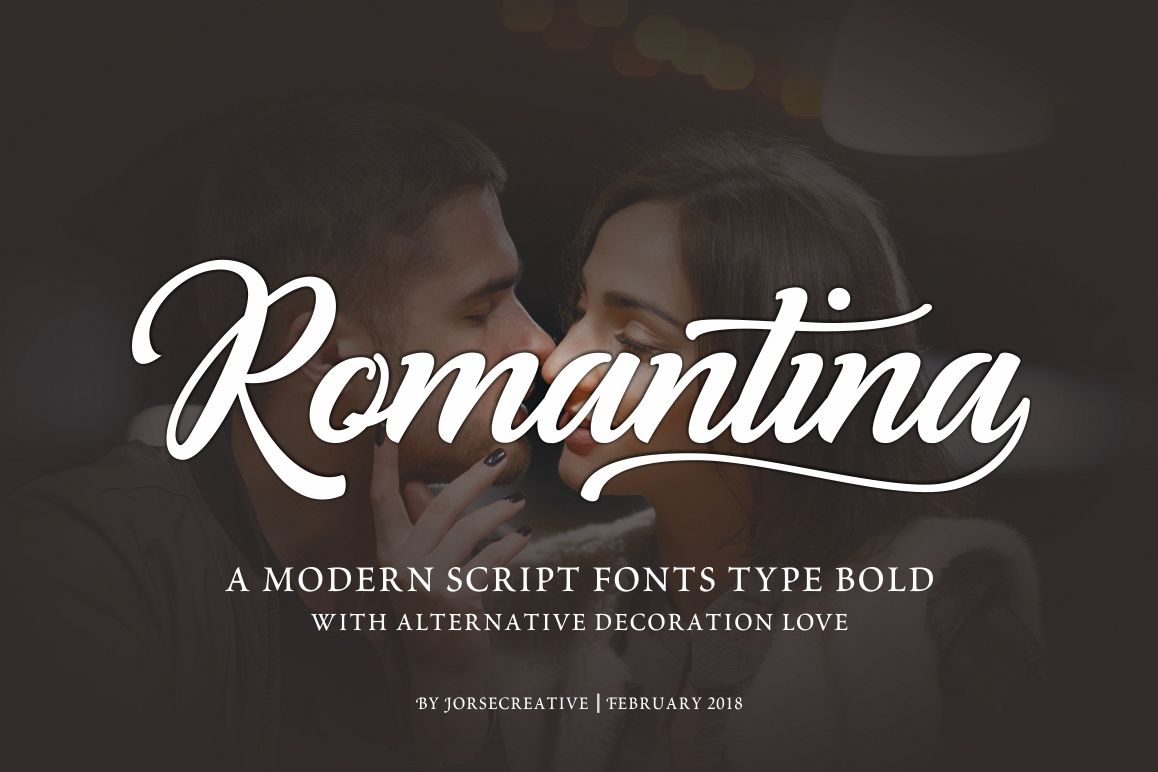
Romantina Font
Romantina Script
Romantina is Font Calligraphy Script, designed in modern style so that this font is beautiful and nice to see. very good to use for brand, t-shirts, packaging brand, greeting card, invitation card etc.
The features of this font is:
• STANDARD UPERCASE
• STANDARD LOWERCASE
• SWITH ALTERNATIVES UPERCASE
• STYLISTIC ALTERNATIVES LOWERCASE
• NITIAL & TERMINAL ALTERNATIVE
• STANDARD LIGATURES
• DISCRETIONARY LIGATUR